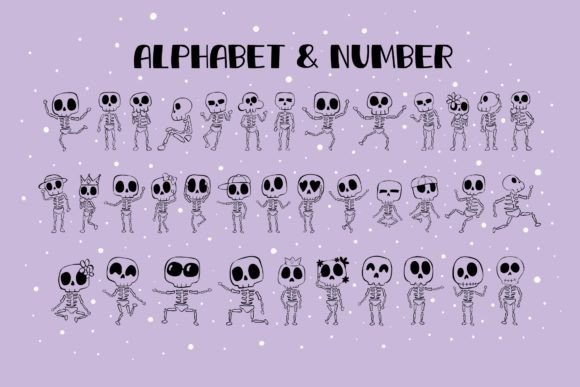
Introduction to Halloween Skeleton Font
As a designer, there’s nothing quite like the thrill of brainstorming ideas for a creative project, only to have a spark of inspiration strike at the most unexpected moment. For me, it was a late-night conversation with a friend that led to the discovery of the perfect font to add some spooky flair to our Halloween-themed designs – the Halloween Skeleton Font.
With its playful, cartoonish style, this high-quality font is a design resource that’s sure to bring a smile to your face. Whether you’re working on a logo, wall art, or a simple card, the Halloween Skeleton Font is the perfect fit. And the best part? It’s available for free download, complete with a transparent background, making it easy to integrate into any design project.
As a valuable addition to any designer’s toolkit, the Halloween Skeleton Font offers endless possibilities for creative expression, from art prints to t-shirts, and everything in between.
Key Features of Halloween Skeleton Font
- High-quality design resource perfect for creative projects and spooky themes.
- Unique Halloween Skeleton Font features a transparent background, allowing for easy customization and blending with other designs.
- Perfect for adding a spooky touch to Halloween-themed designs, invitations, and other creative projects.
Honest Review: Halloween Skeleton Font
I recently came across the Halloween Skeleton Font and I was excited to try it out for my latest design project. As a designer, I’m always on the lookout for high-quality design resources that can add a unique touch to my work.
- ✨ High-quality design that’s perfect for Halloween-themed projects
- ✨ Transparent background, making it easy to customize and combine with other designs
- ⚠️ Limited character set, which may limit its use in more complex designs
- ⚠️ May not be suitable for use in non-Halloween-themed projects
Overall, I’m impressed with the Halloween Skeleton Font. It’s a great addition to any design resource library, and it’s perfect for designers who need a high-quality, spooky font for their creative projects.
Halloween Skeleton Font
The Halloween Skeleton Font is a free download, high-quality design resource perfect for any creative project. With a transparent background, this font is ideal for adding a spooky touch to your designs.
Tips for Getting the Most Out of the Halloween Skeleton Font
To get the most out of this font, use it in combination with other design elements, such as images or graphics, to create a cohesive and spooky design. Experiment with different font sizes and colors to achieve the desired effect.
The Halloween Skeleton Font is perfect for:
- Halloween-themed designs.
- Spooky invitations or party decorations.
- Creepy social media posts or graphics.
Haunted House Font
The Haunted House Font is a design resource that’s perfect for designers looking to add a spooky touch to their creative projects. It features a distressed, gothic style with a transparent background, making it ideal for use on dark-colored backgrounds. This font compares to Halloween Skeleton Font in its use of bold, eye-catching lettering but differs in its more rugged and distressed design.